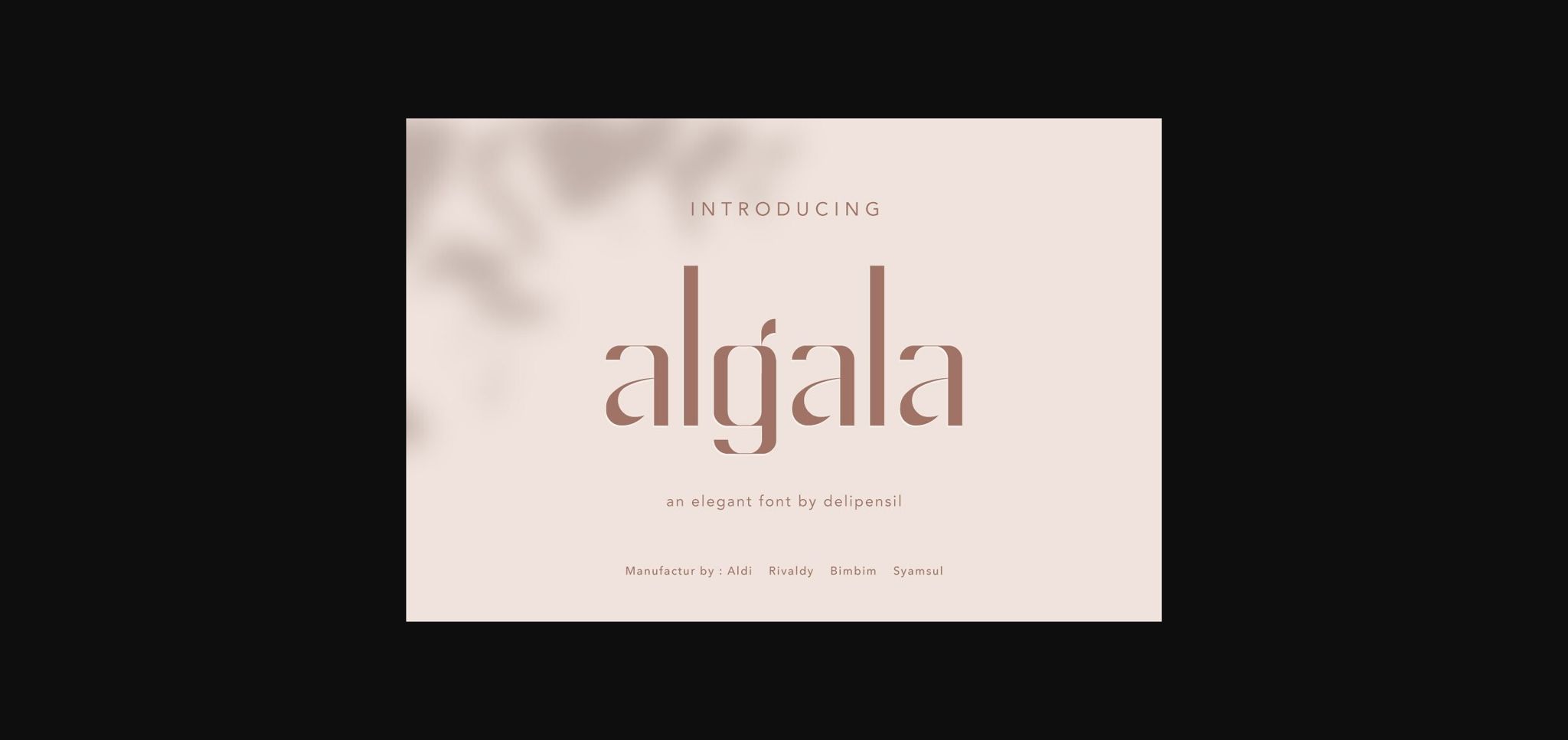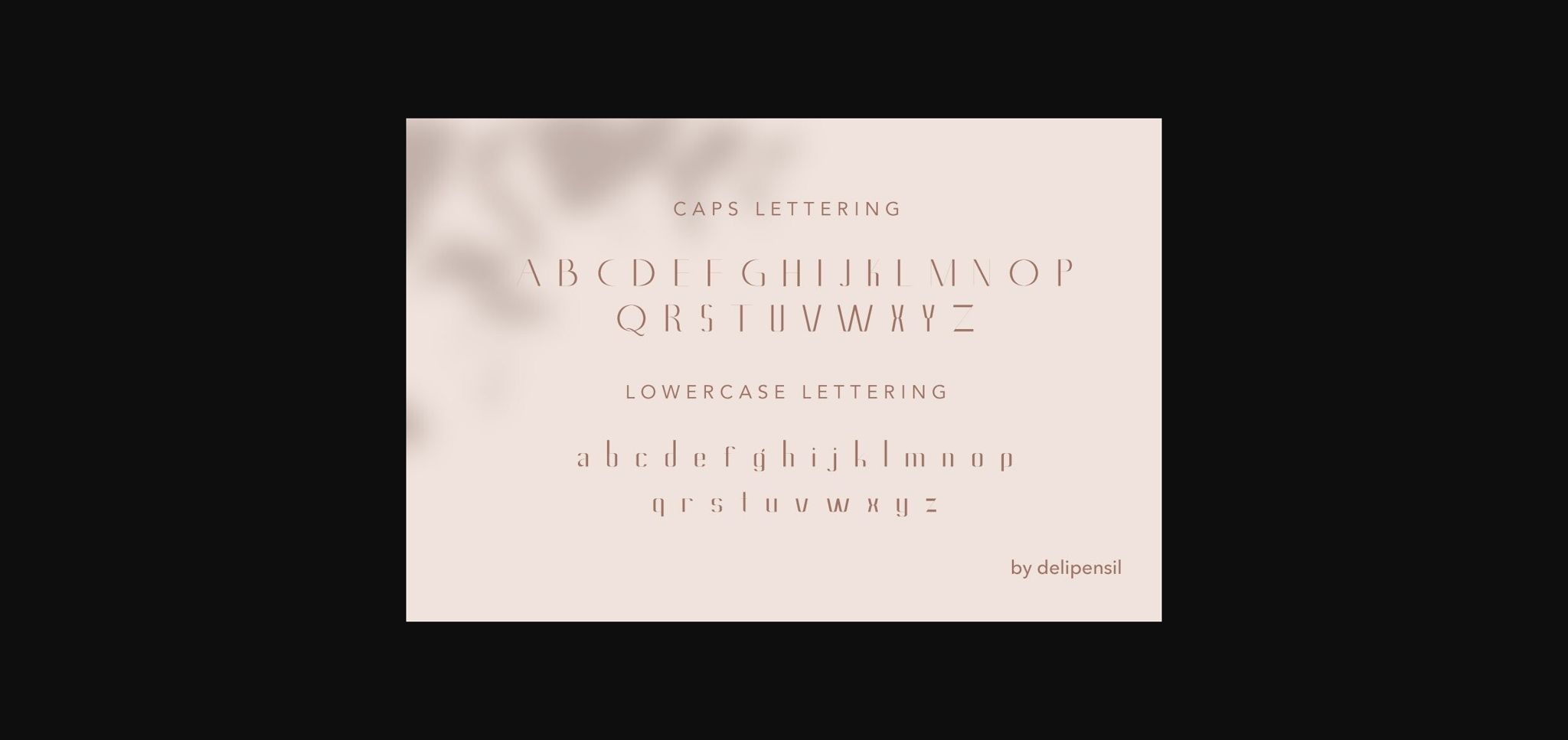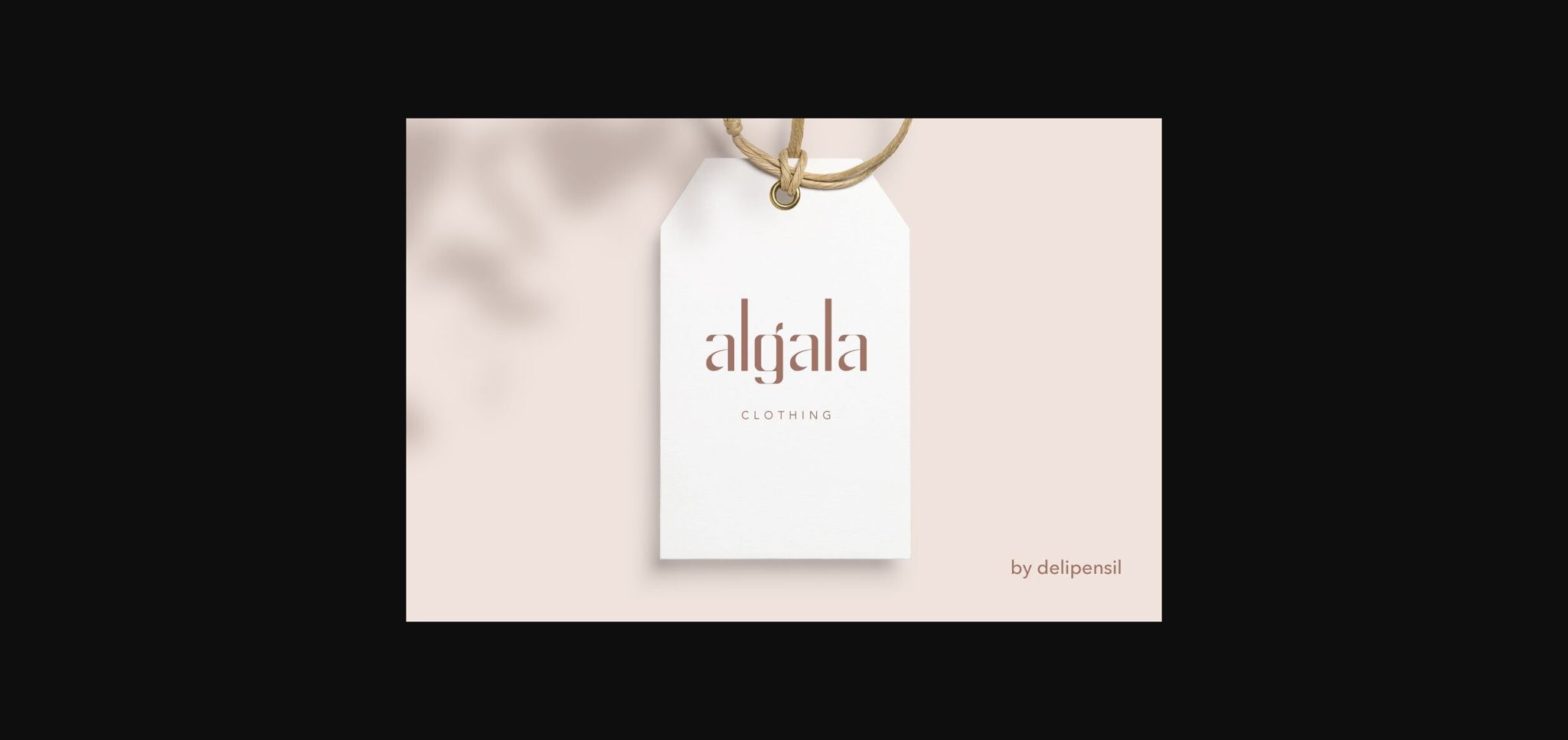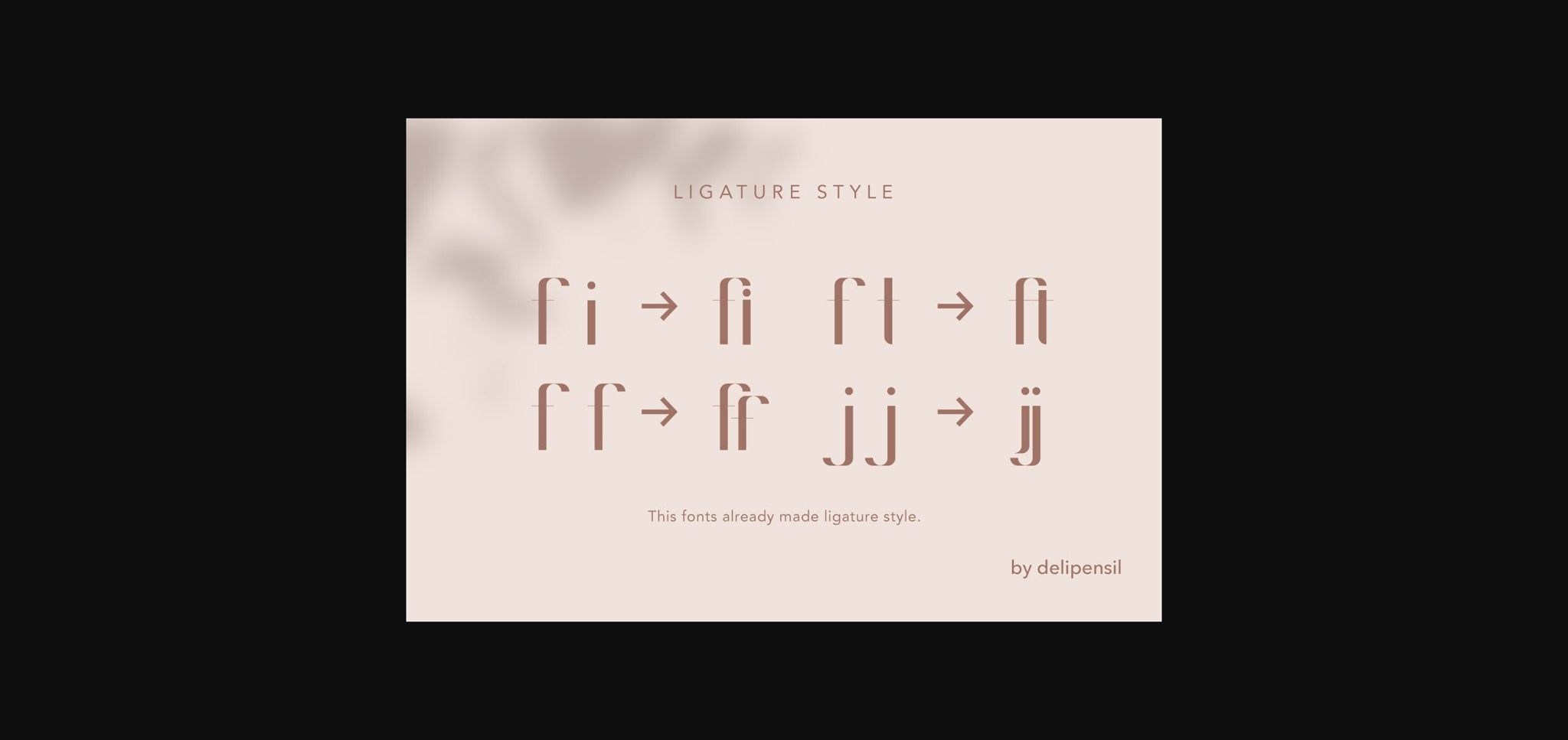
Algala Font
About Algala Font
Algala is an elegant medium font that exudes sophistication and timeless charm. Its balanced and graceful letterforms make it a versatile choice for a wide range of design projects, adding a touch of refined beauty to your typography.